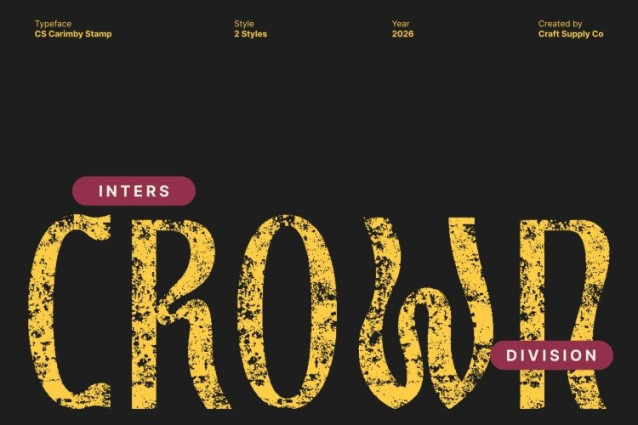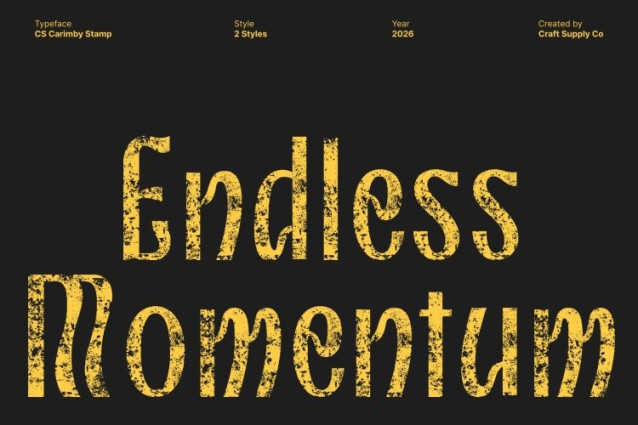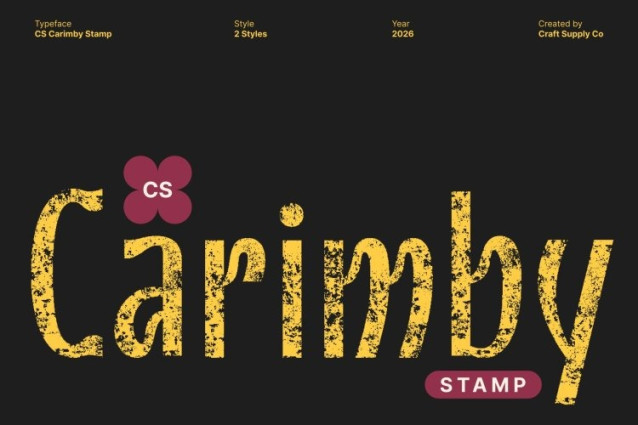
CS Carimby Stamp Font
CS Carimby Stamp Font This is a sans-serif font inspired by the graceful lines of Art Nouveau. Its soft curves, flowing shapes, and subtle decorative details create a harmonious rhythm that feels both natural and sophisticated. Each letter carries a sense of organic movement, giving your typography a unique, artistic personality.
Artistic Elegance with a Stamped Texture
The stamped style adds an authentic, slightly rough texture to the font, enhancing its handcrafted character. This imperfection introduces visual depth and a tactile quality that makes designs feel both luxurious and approachable. The combination of Art Nouveau inspiration and stamped artistry ensures a font that’s expressive yet refined.
Perfect for Sophisticated and Creative Applications
This font excels in projects where elegance and artistic flair are key. It is ideal for invitations, high-end branding, editorial layouts, packaging, and decorative headlines. Its flowing curves and distinctive aesthetic elevate any design, providing a timeless, captivating presence.
Versatile and Distinctive
Whether for digital or print, this font brings organic sophistication to your work. It combines modern clarity with classic Art Nouveau charm, offering a versatile font that communicates creativity, refinement, and style in every composition.